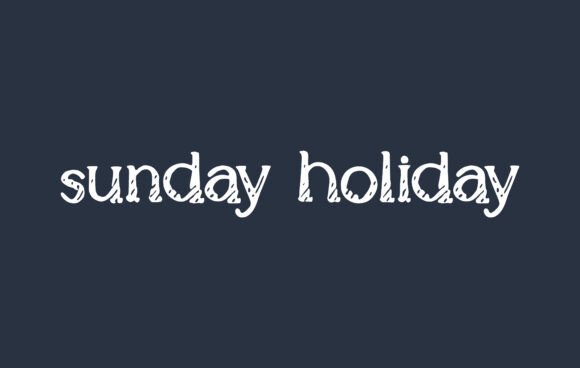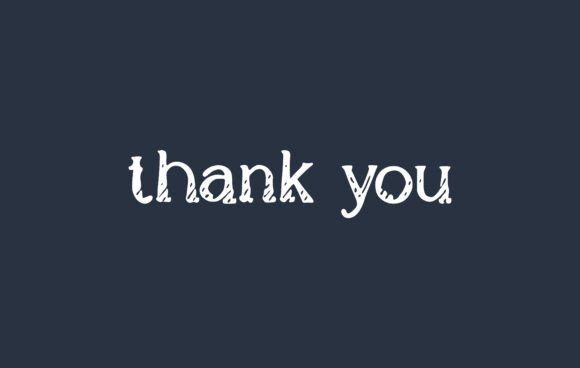
The Perfect Pen Stroke for Your Next Creative Project
Have you ever stared at a blank page, trying to bring your ideas to life, only to feel like something’s missing? That’s where the magic of typography comes in. A well-chosen font can elevate your design from bland to grand, and that’s exactly what the Iris Font does.
Expertly designed to capture the essence of a handwritten touch, the Iris Font is a true favorite among designers. Its legibility and romantic charm make it perfect for a wide range of applications, from magazine headlines to wedding invitations. Whether you’re a seasoned pro or a creative newbie, the Iris Font has the potential to take your ideas to the next level.
For designers, the Iris Font is a valuable tool in their arsenal, offering a unique and versatile solution for any project. With its elegant feel and versatility, it’s no wonder why the Iris Font has become a go-to choice for creatives around the world.
Iris Font Key Features
- Unique Characteristic: Iris Font features a unique blend of modern and vintage elements, making it suitable for a wide range of design projects, from modern websites to classic print materials.
Iris Font Review
Overall, I’m quite impressed with the Iris font. Its modern and elegant design ✨ makes it a great choice for a wide range of applications, from digital interfaces to print materials.
The font’s versatility and flexibility are among its strongest points. Here are some of the things that I particularly like:
- ✨ The font’s legibility is excellent, making it easy to read in both large and small sizes.
- ✨ The font’s modern feel is perfect for trendy and stylish designs.
- ✨ The font’s wide range of weights and styles provides endless possibilities for customization.
However, as with any font, there are some limitations to consider:
- ⚠️ The font’s bold weight can sometimes feel a bit too condensed, making it difficult to read in certain contexts.
- ⚠️ The font’s italic styles can be a bit too dramatic, making them more suitable for emphasis rather than regular body text.
Overall, I think the Iris font is a great addition to any designer’s toolkit. Its strengths far outweigh its weaknesses, and with a bit of careful consideration, it can be a powerful tool for creating beautiful and effective designs.
Tips for Getting the Most Out of Iris Font
Experiment with different font sizes, colors, and styles to create unique and visually appealing designs.
Use Iris Font for headings, titles, and other prominent text elements to add a touch of elegance and sophistication.
Combine Iris Font with other fonts and design elements to create a cohesive and balanced visual identity.
Iris Font is ideal for:
– Creating elegant and sophisticated designs for weddings, parties, and other special events.
– Designing luxury brands and high-end products.
– Creating invitations, menus, and other print materials that require a touch of elegance and sophistication.